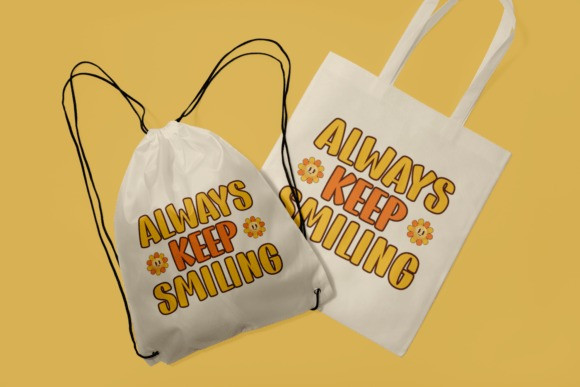
Sunshine Bloomy Font
Sunshine Bloomy Font, a delicate display font that exudes a delightful balance of beauty and a wonderfully vintage feel. This cute, hand-drawn font is perfect for creating passionate social media content, uplifting projects or grabbing attention with adorable photo captions. Ideal for both educational and professional use, it adorns book covers, branding, cards and magazines with a clean, authentic aura. Also a favorite in the apparel industry, “Sunshine Bloomy” brings a trendy roundness to seasonal t-shirt and packaging designs. With its universal appeal, it is suitable for adding a unique, personal touch to greeting cards or simply enriching everyday quotes with its gentle, blooming charm. Offering multilingual support, “Sunshine Bloomy” is guaranteed to be universal. Enjoy the handmade magic it brings to your screen printing projects, The walls are decorated with the beauty of wallpaper fonts and the gentle touch of handwritten letters in print.